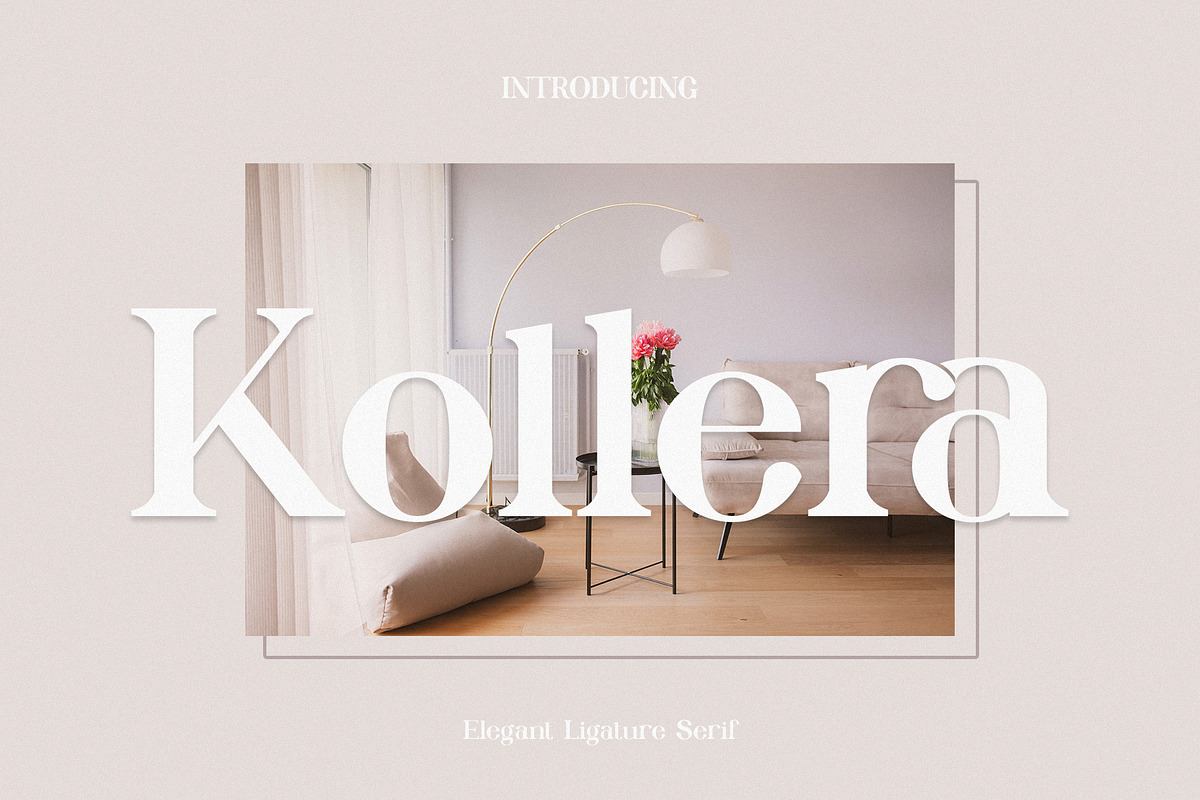
Kollera Ligature Serif Typeface Free Download
Kollera Ligature Serif Typeface Free Download is a luxurious and modern serif typeface that features elegant ligatures and high-contrast letterforms. Designed for visual sophistication, Kollera is perfect for upscale branding, editorial headlines, fashion lookbooks, wedding invitations, and logo design. Its stylish details give a refined, custom-made feel to your typography.
The ligature-rich design of Kollera Ligature Serif Typeface Free Download allows you to craft unique, flowing compositions that feel both classic and contemporary. With its graceful curves and timeless elegance, it works beautifully across digital and print platforms.